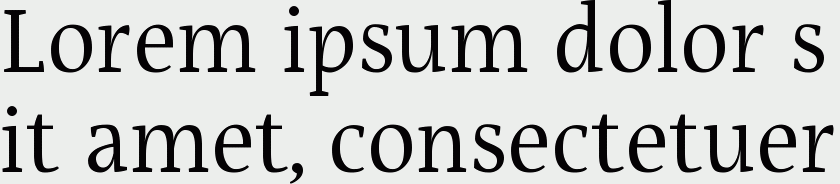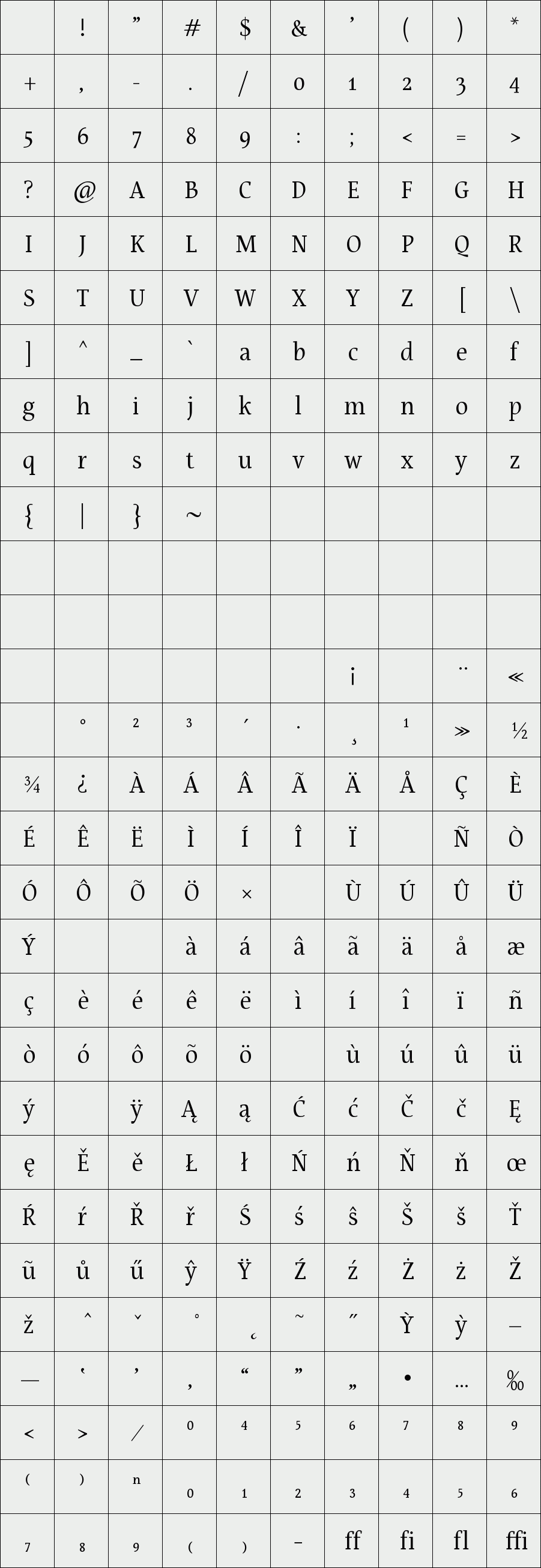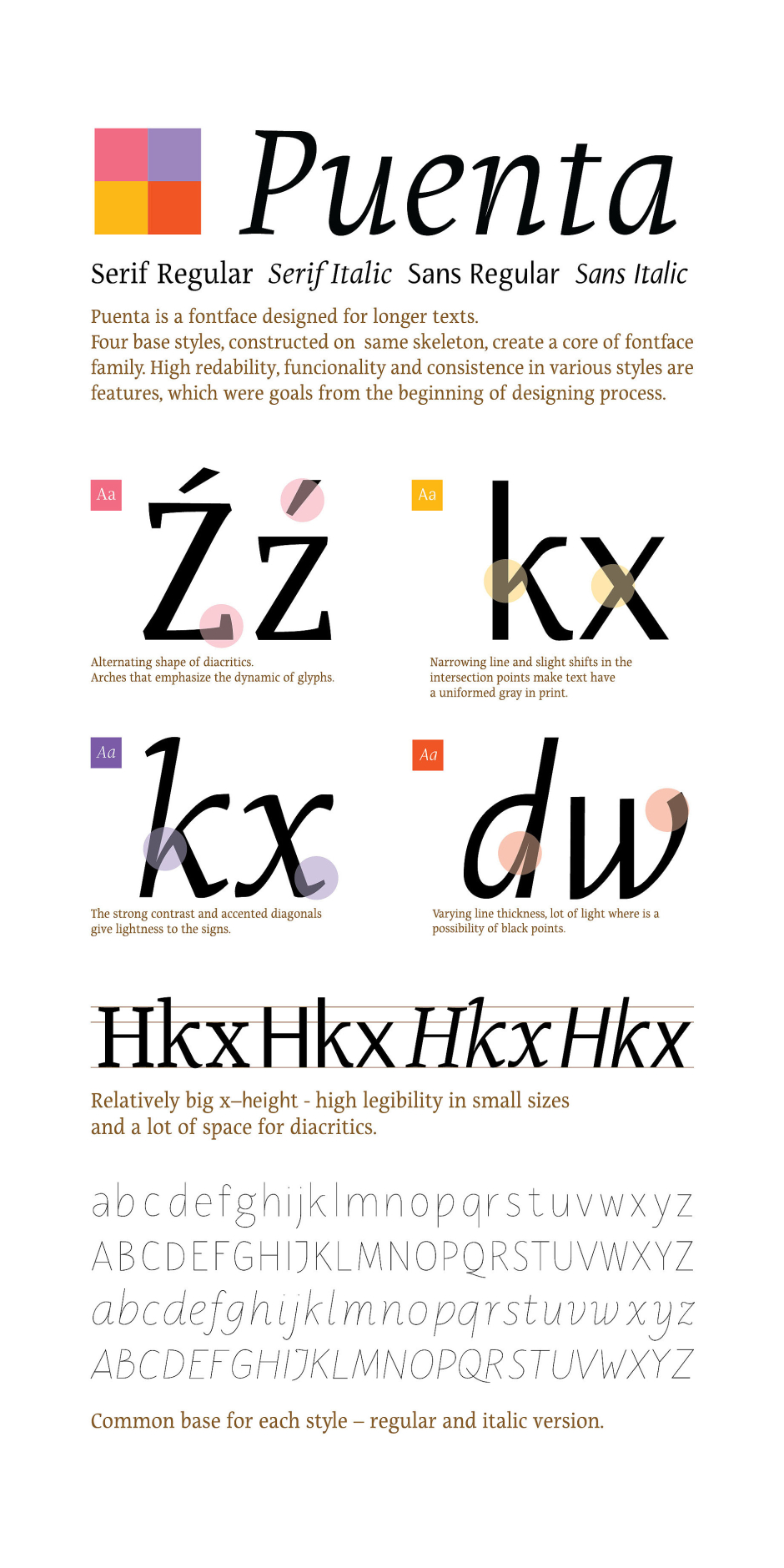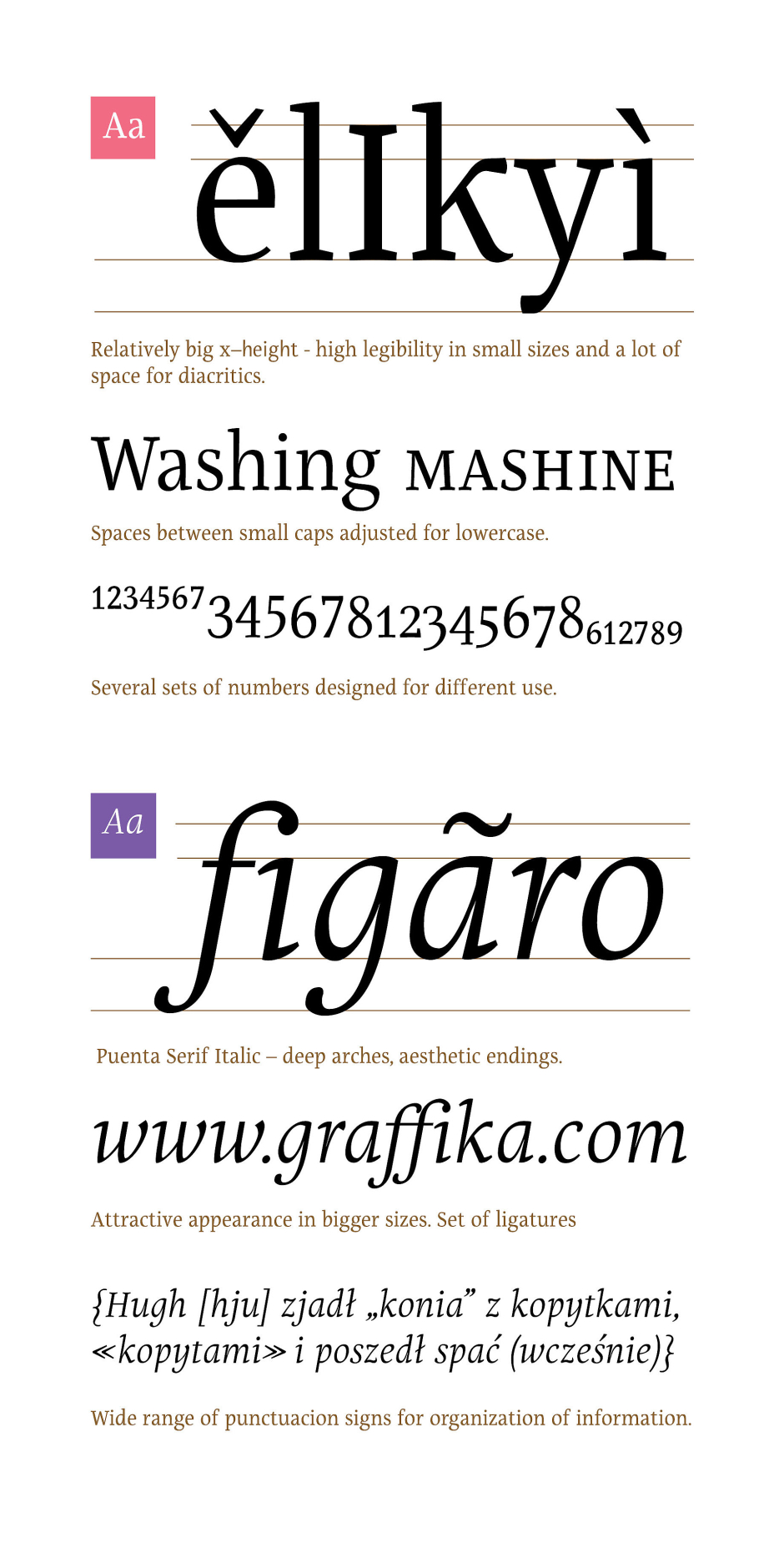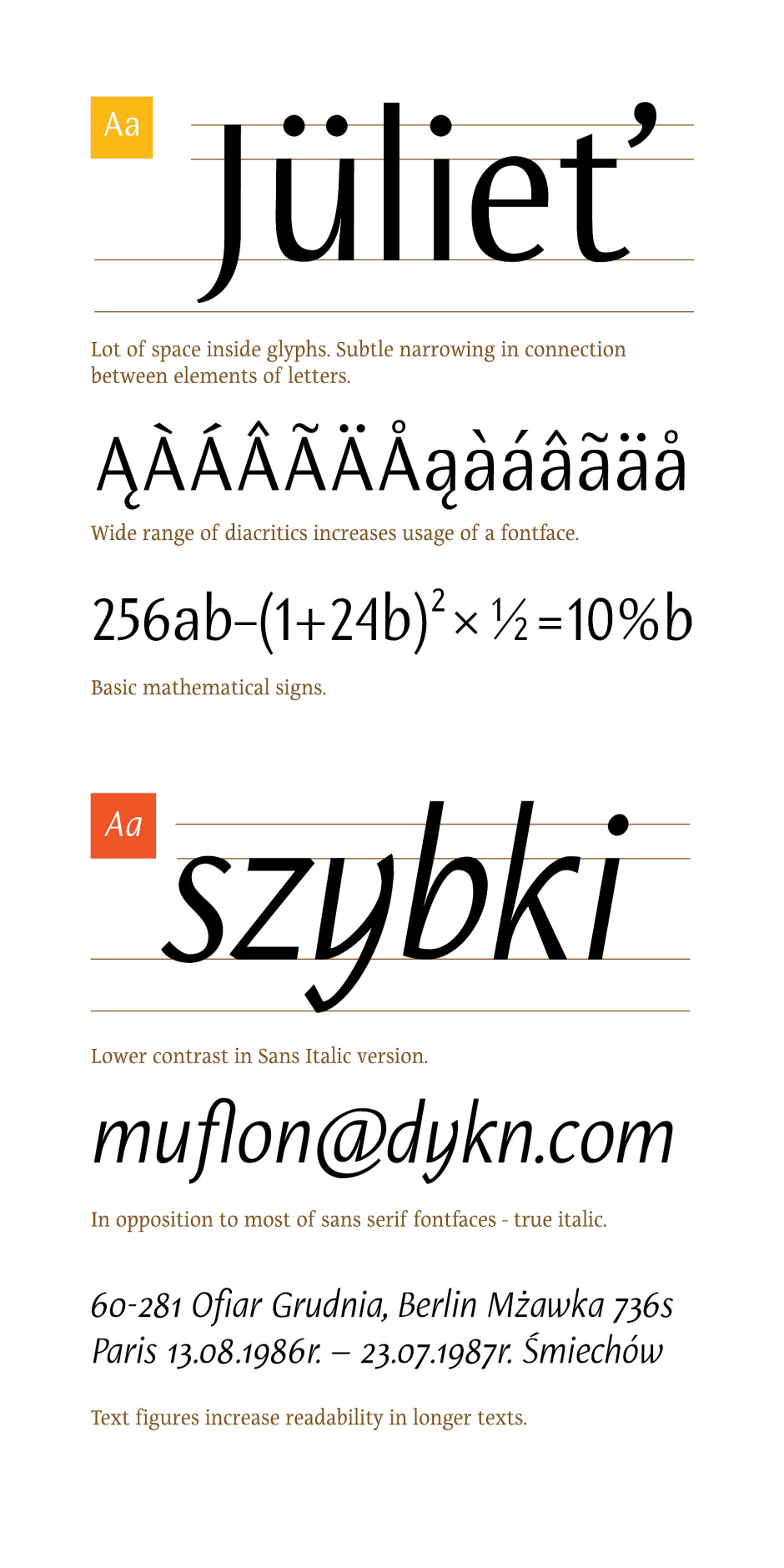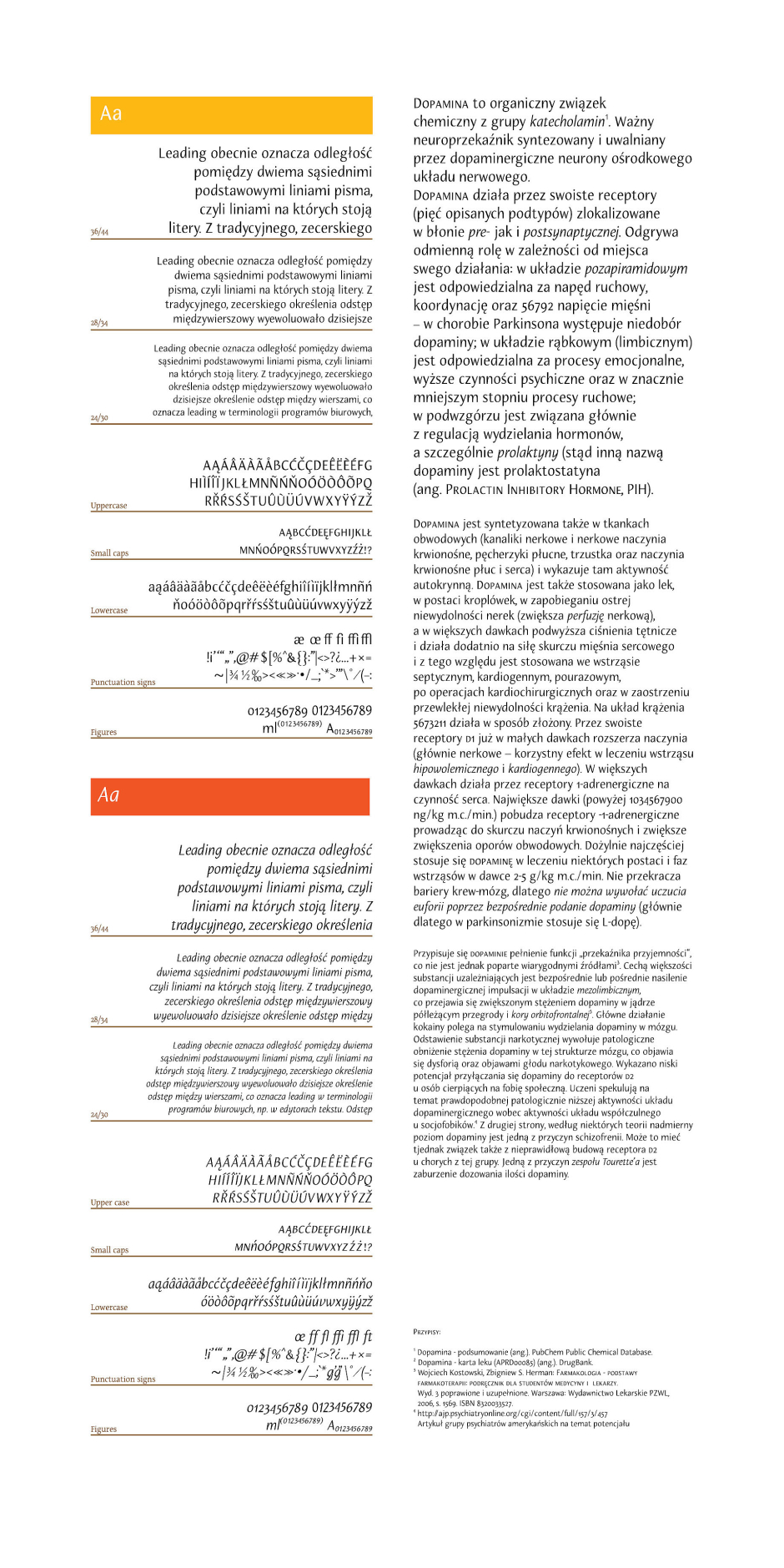
Puenta
/ Puenta Serif Regular
Font family containing serif and matching sans serif variant of one typeface.
Designed for long texts in small sizes.
Designer: Aleksandra Grunholz